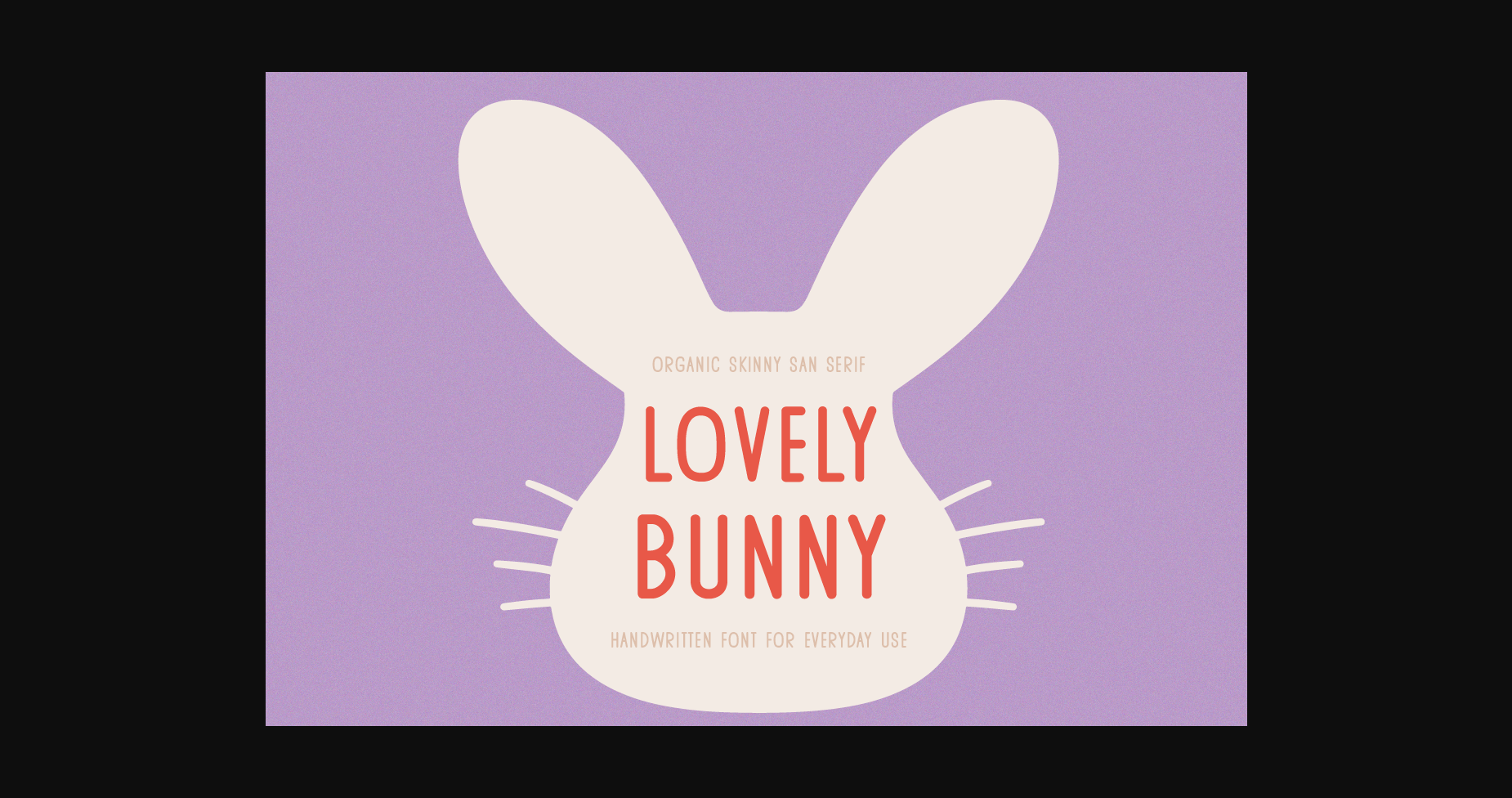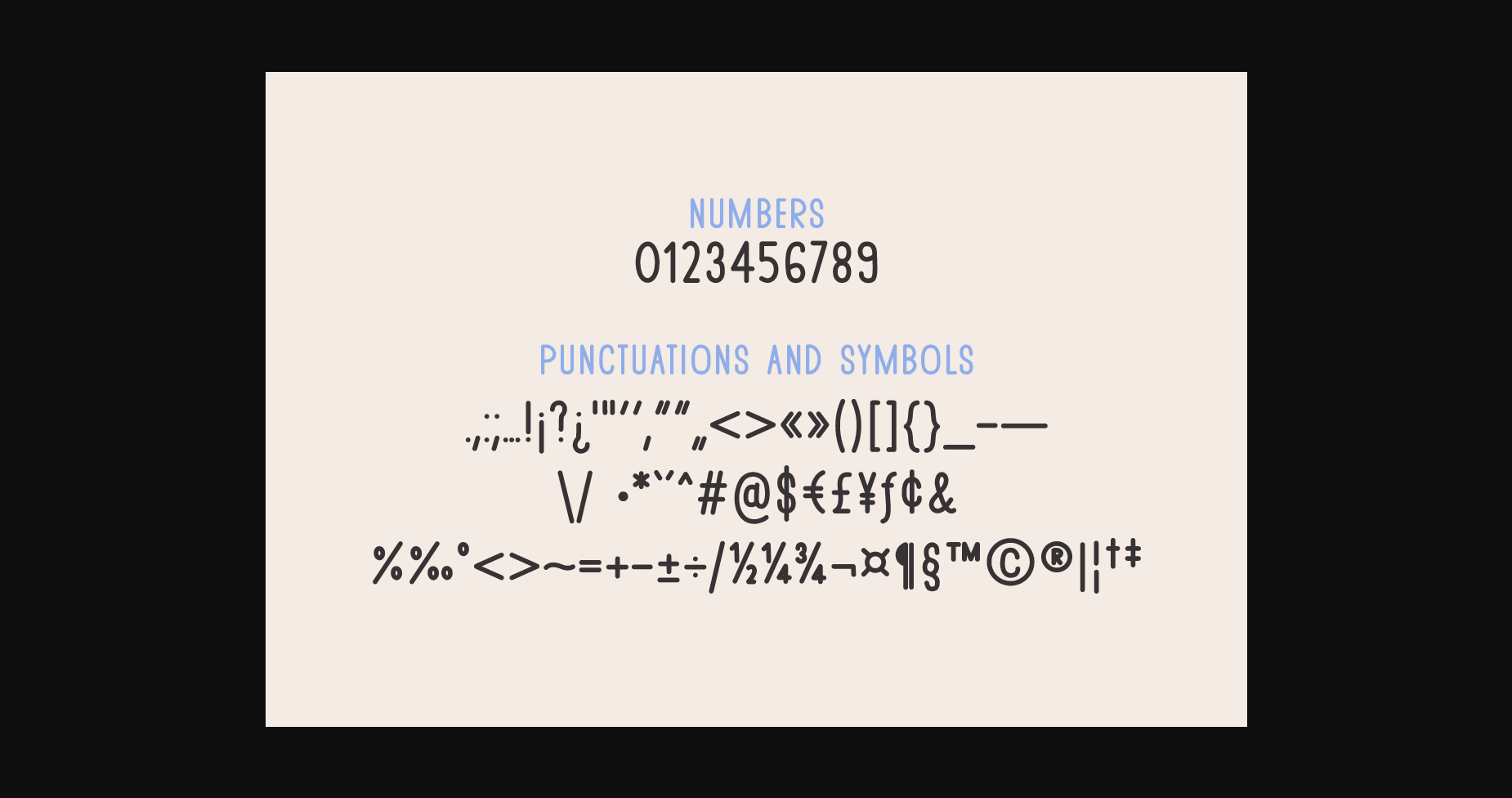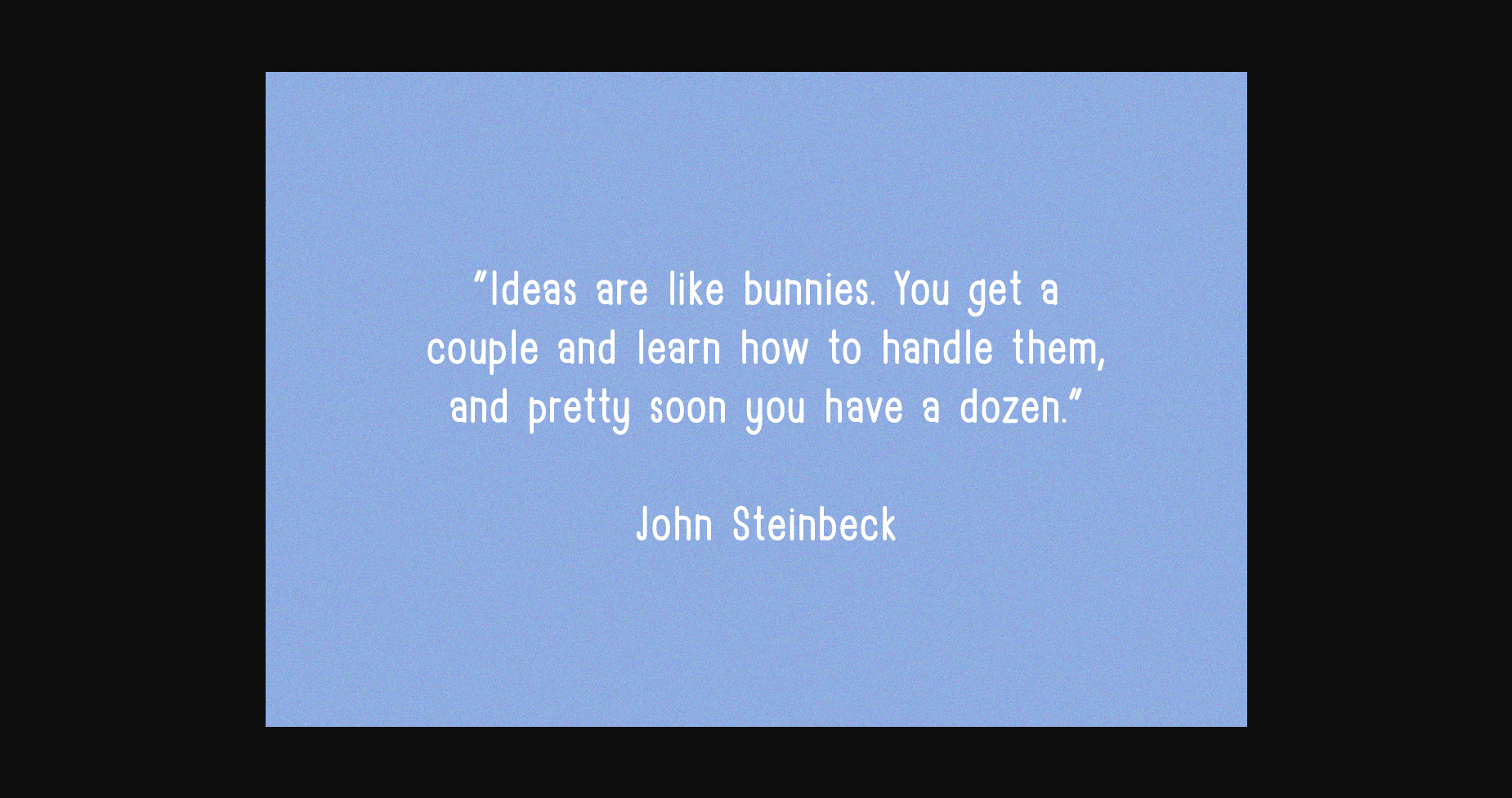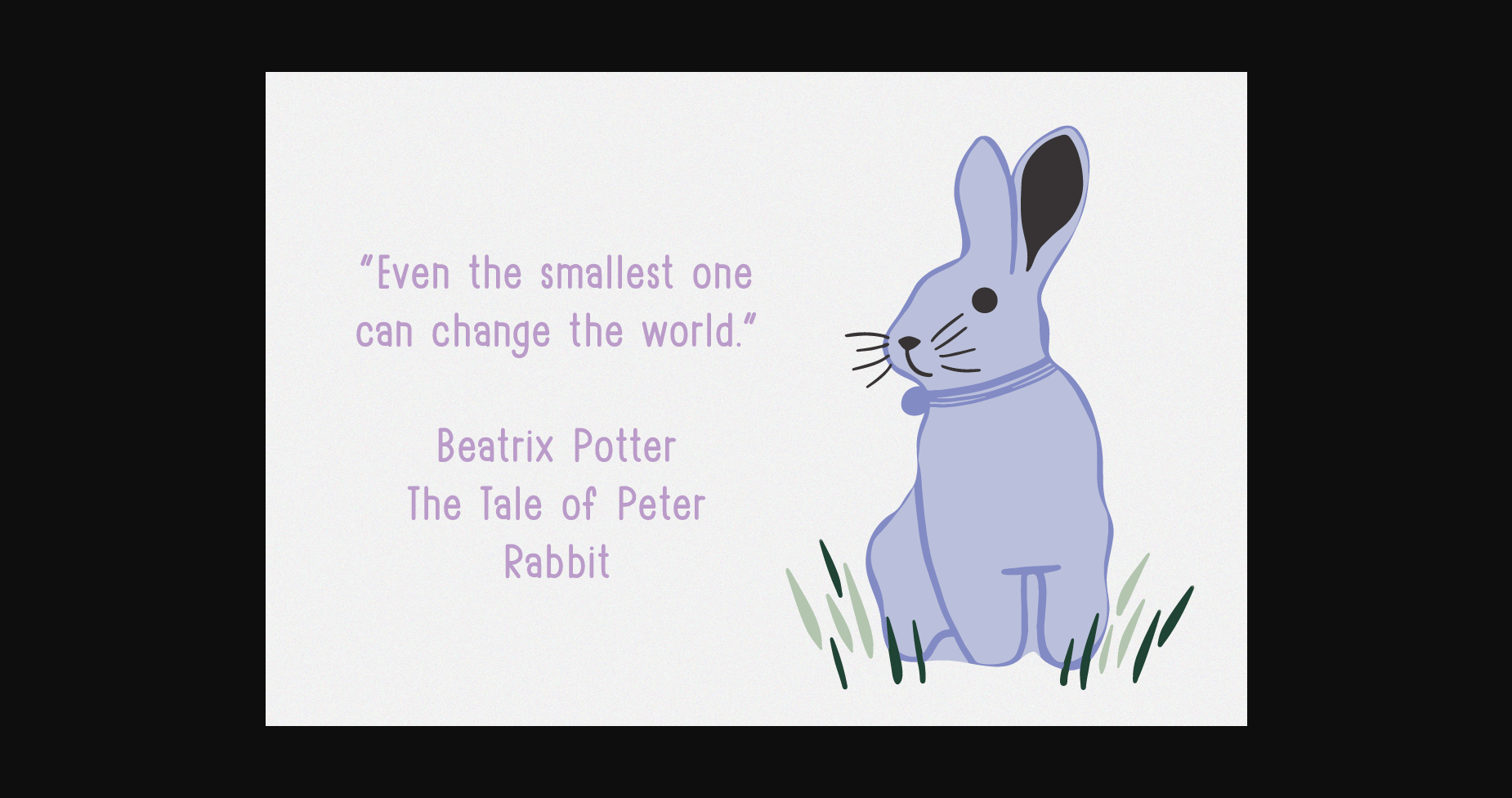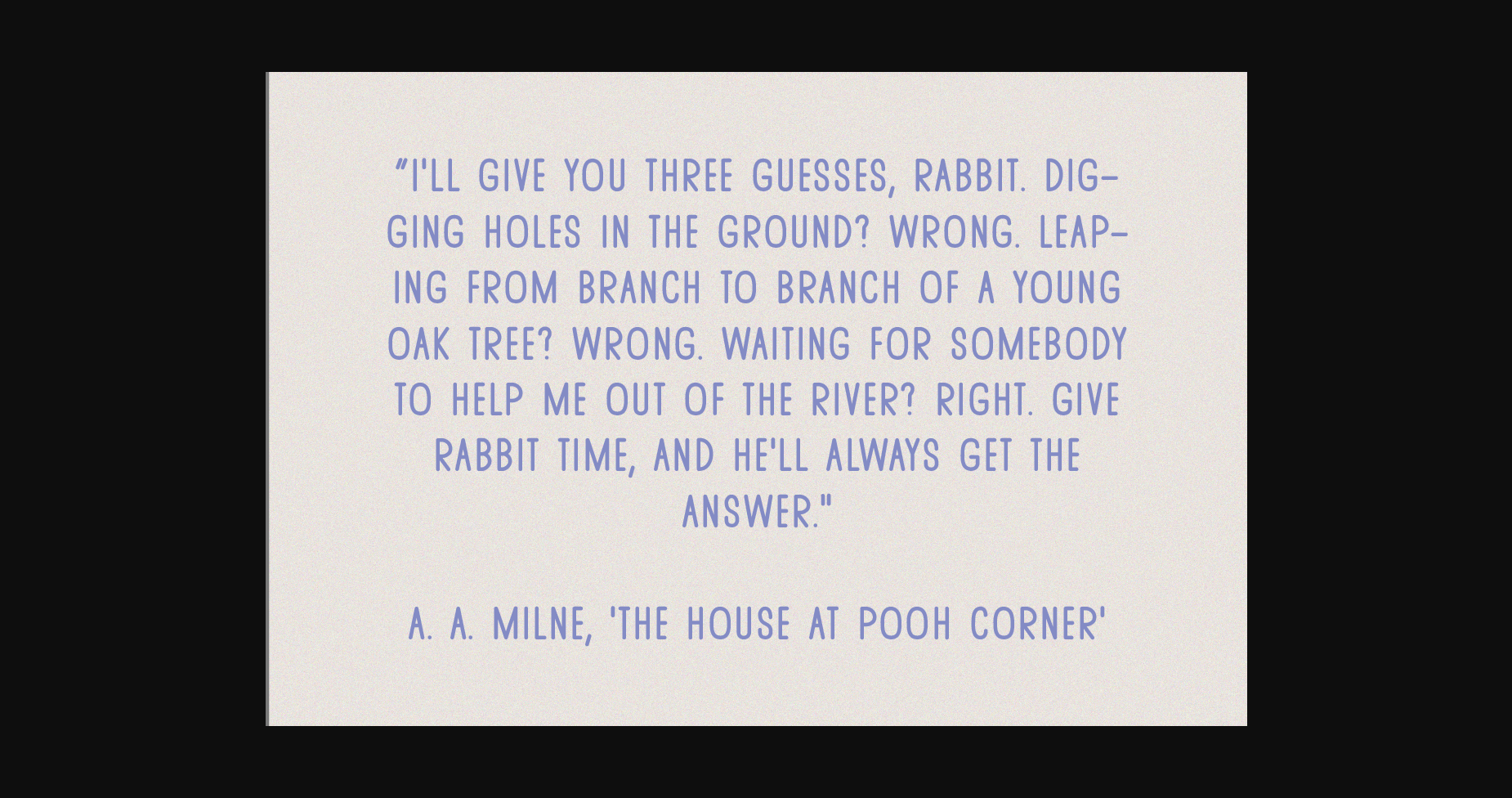
Lovely Bunny Font
About Lovely Bunny Font
LOVELY BUNNY is an organic skinny sans serif font. Perfect for creating posters, logos, greeting cards, and packaging. Writing diary or note. Decorating the illustration and so much more!